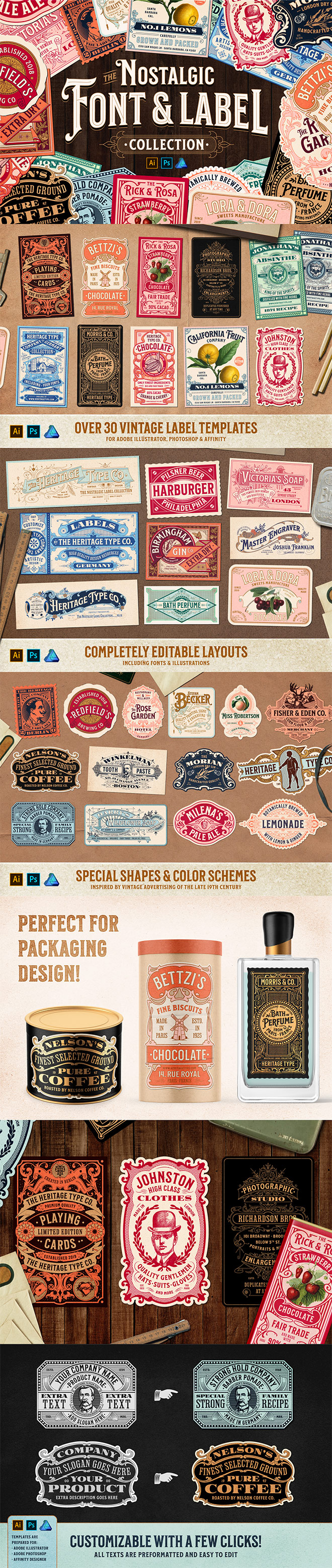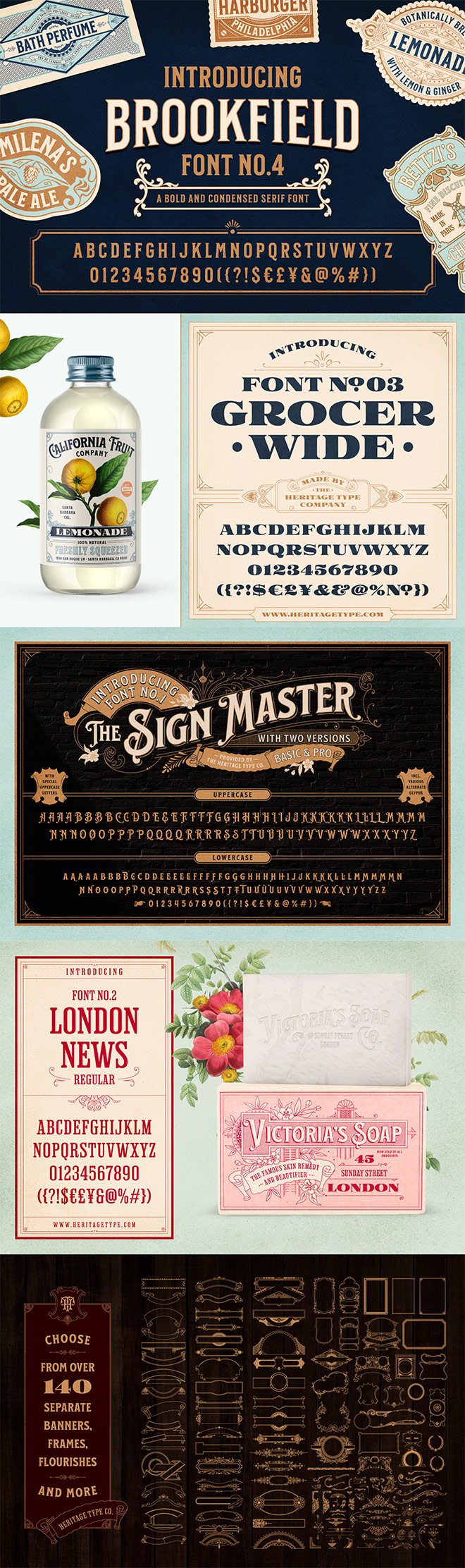
My friends at Heritage Type Co. recently launched a magnificent new collection of vintage fonts and ready-made label designs. If you love the detailed design style of vintage branding with ornate embellishments, this extensive set of tools and resources may be just what you’re looking for to create nostalgic logos, packaging designs, posters, wedding invitations, and much more! The Nostalgic Font and Label Collection is currently on sale with $50 off, but Spoon Graphics readers get an additional 20% off using the code SPOON20, which works out to a total of 34% off the regular price.
Vintage logo templates are usually simple layouts of text elements, sometimes accompanied by an icon graphic or illustration. I haven’t seen any as intricate and detailed as the templates in the Nostalgic Font and Label Collection. Not only are these designs based on original vintage ephemera for maximum realism, the pack includes 4 expertly designed fonts that perfectly complement the style so you can preserve the original appearance of each design.